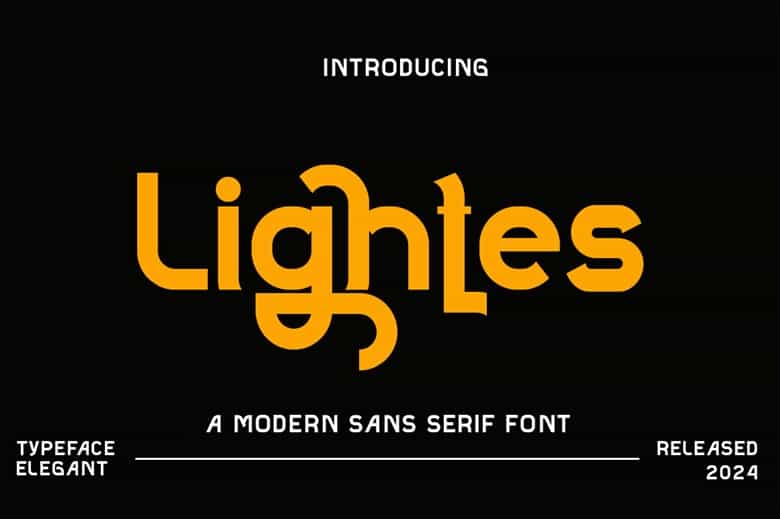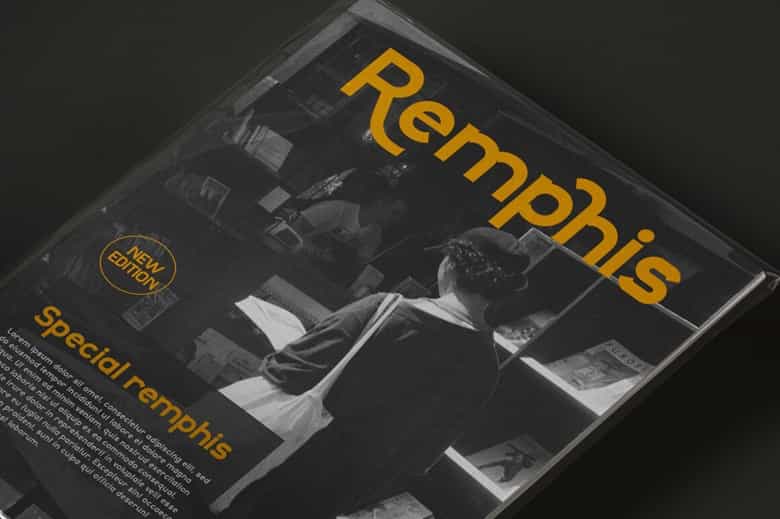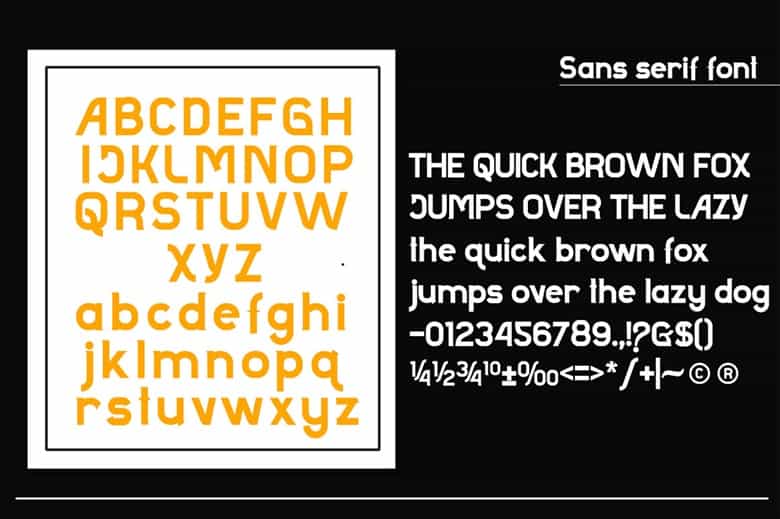
Lightes is a light and very contemporary sans serif typeface. Their shapes are rather neat with straight lines with very slight curves at the corners giving them rather smooth but rather harsh looking feel. Letter distribution is calculated to provide an open and legible design good for lengthy as well as tiny copy.